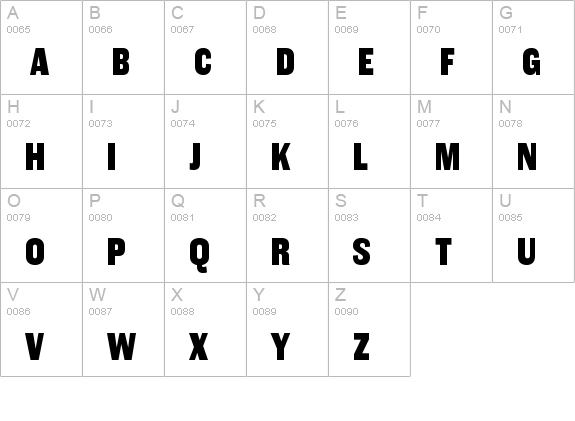
Americane Condensed Heavy is a heavy, high-impact, condensed-width variant in the Americane typeface family \xE2\x80\x94 well suited to high-impact headlines, posters, and display advertising.
Americane Condensed Heavy font is a bold and impactful typeface designed to make a statement. With its strong and solid letterforms, this font exudes confidence and power, perfect for headlines, titles, and graphic designs that demand attention. The condensed style adds a touch of modernity and sophistication to any project. What makes Americane Condensed Heavy font even more appealing is that it is available for free download at FontsMarket.com. This means that you can easily access this high-quality font without any cost, making it a valuable addition to your design toolkit. Whether you're working on branding materials, posters, or web designs, Americane Condensed Heavy font will help you achieve a professional and polished look effortlessly. Download it today and elevate your designs with this striking typeface.